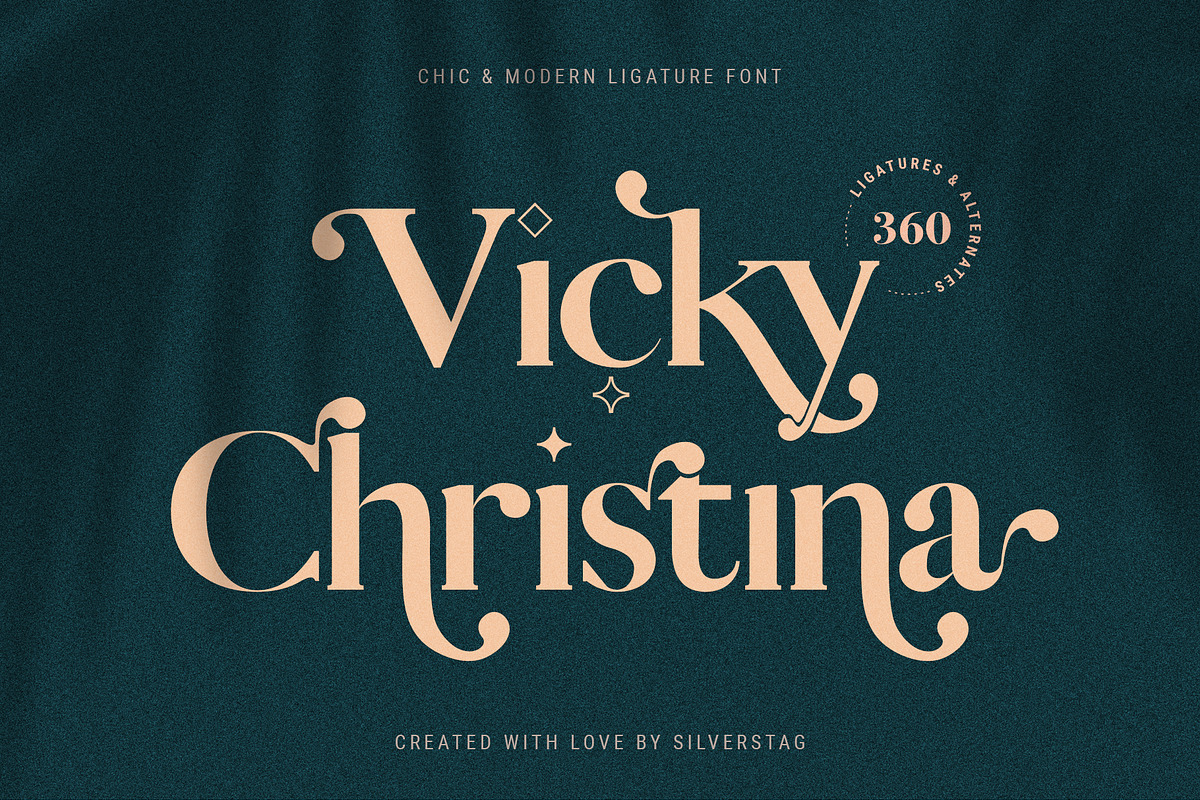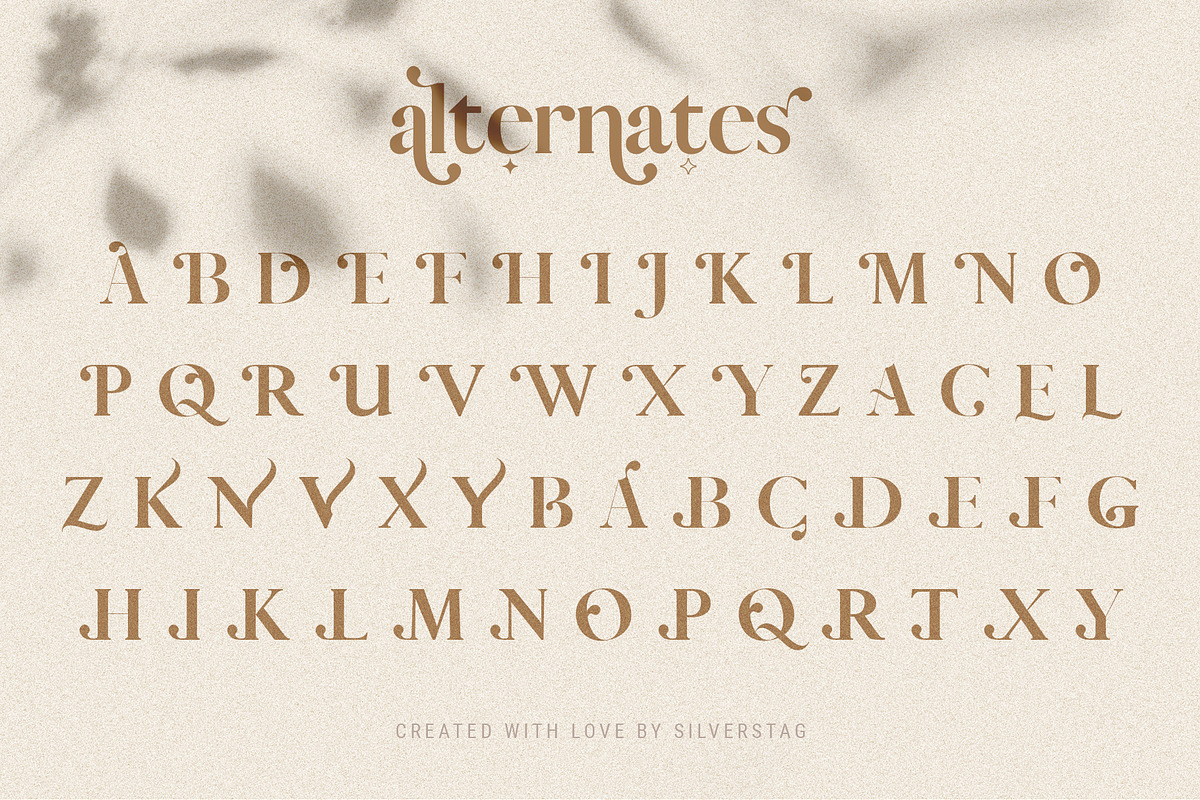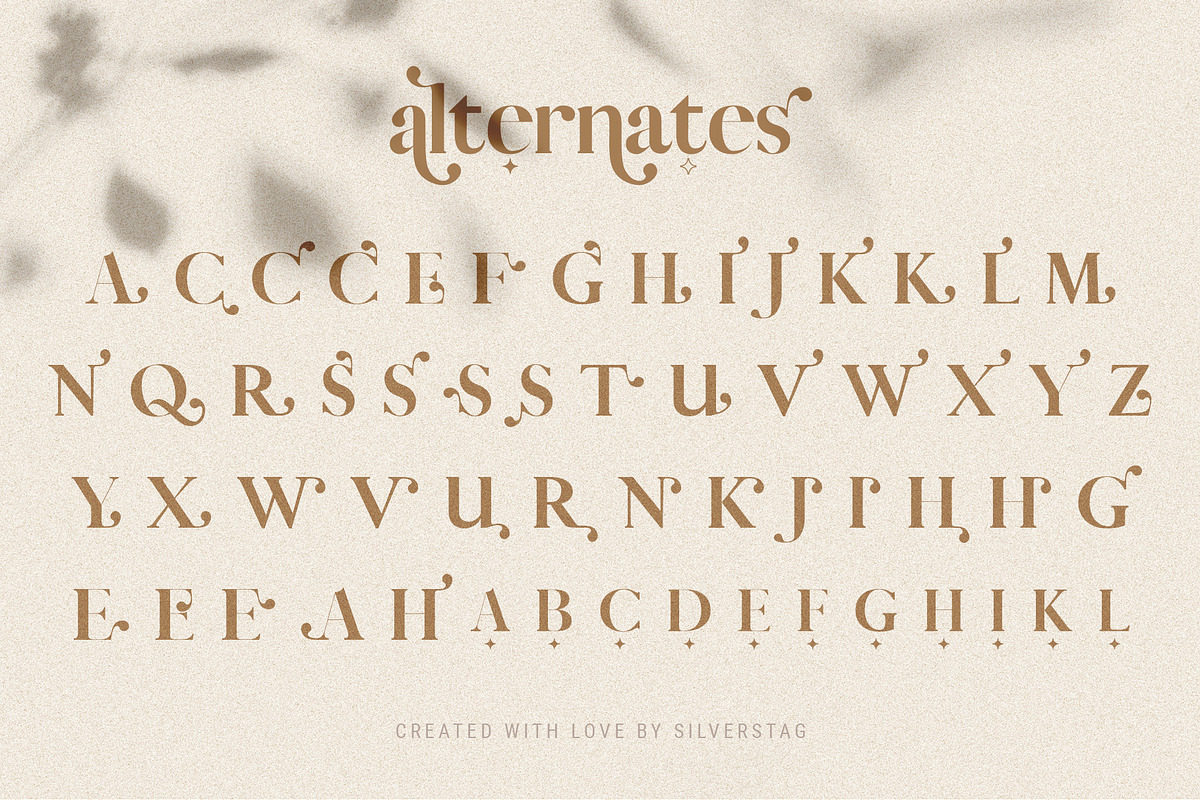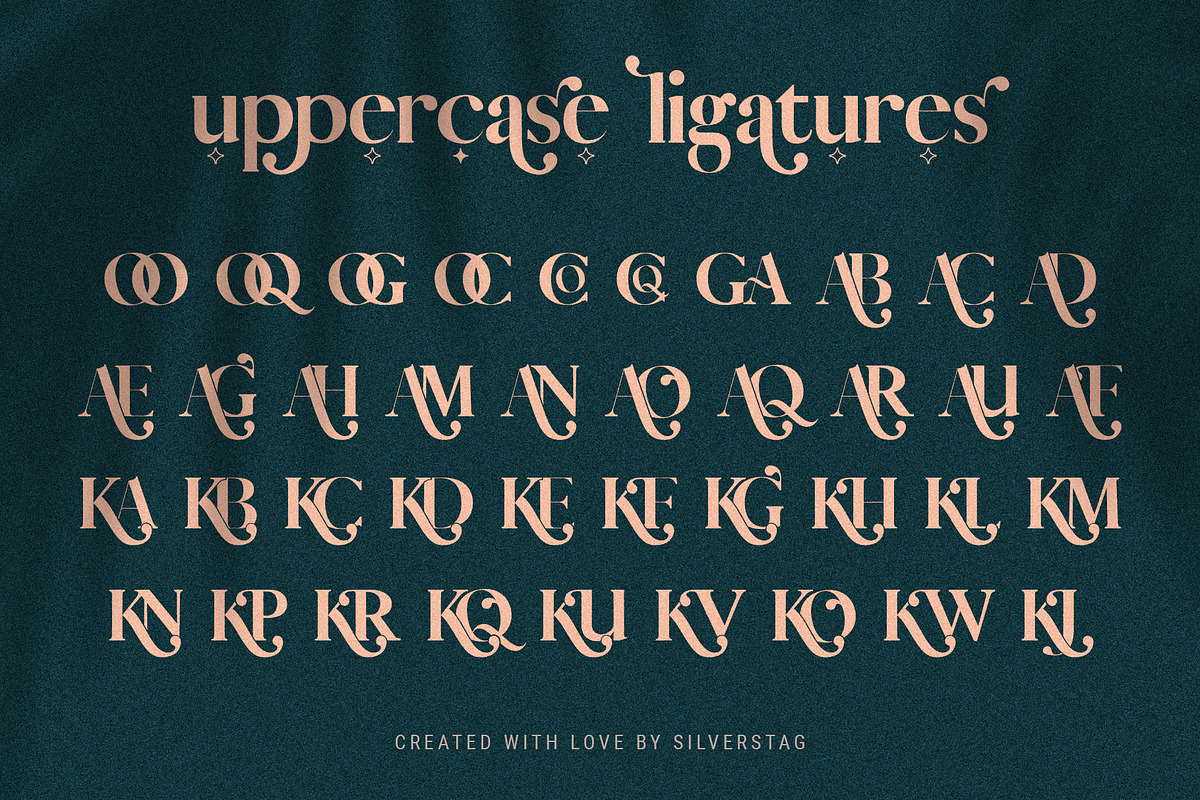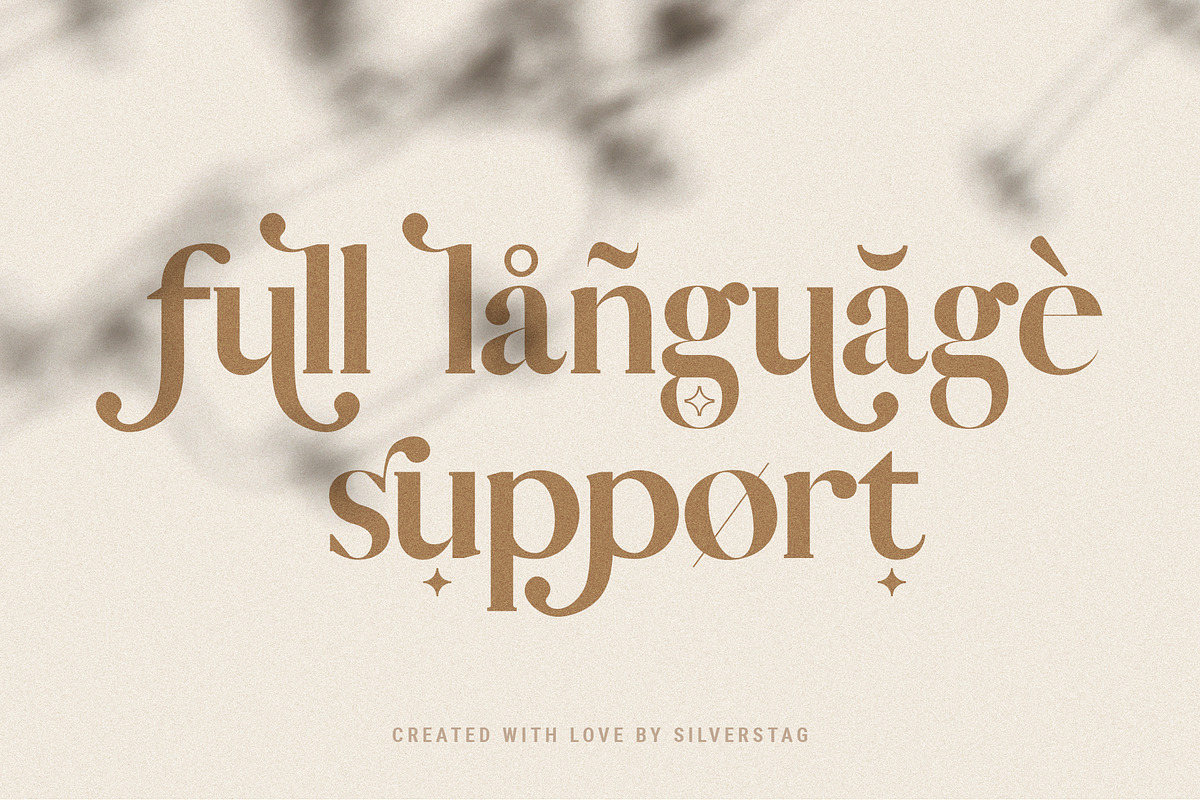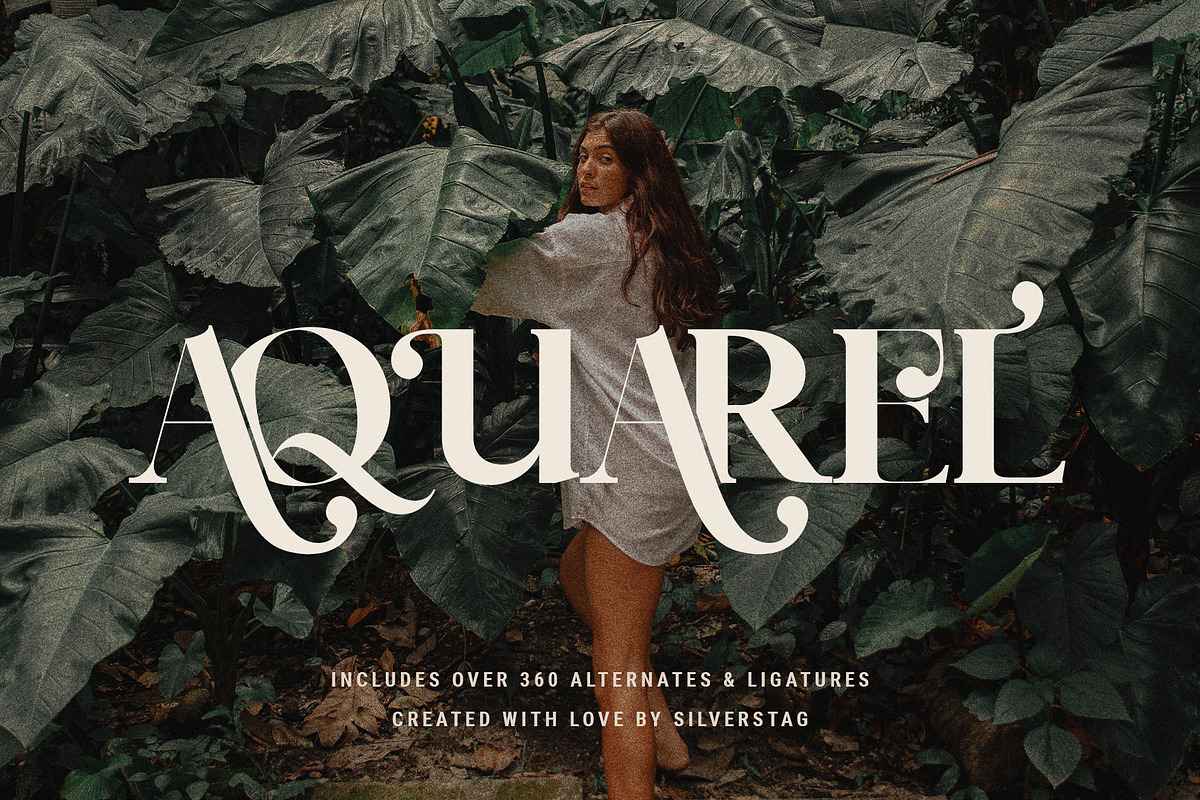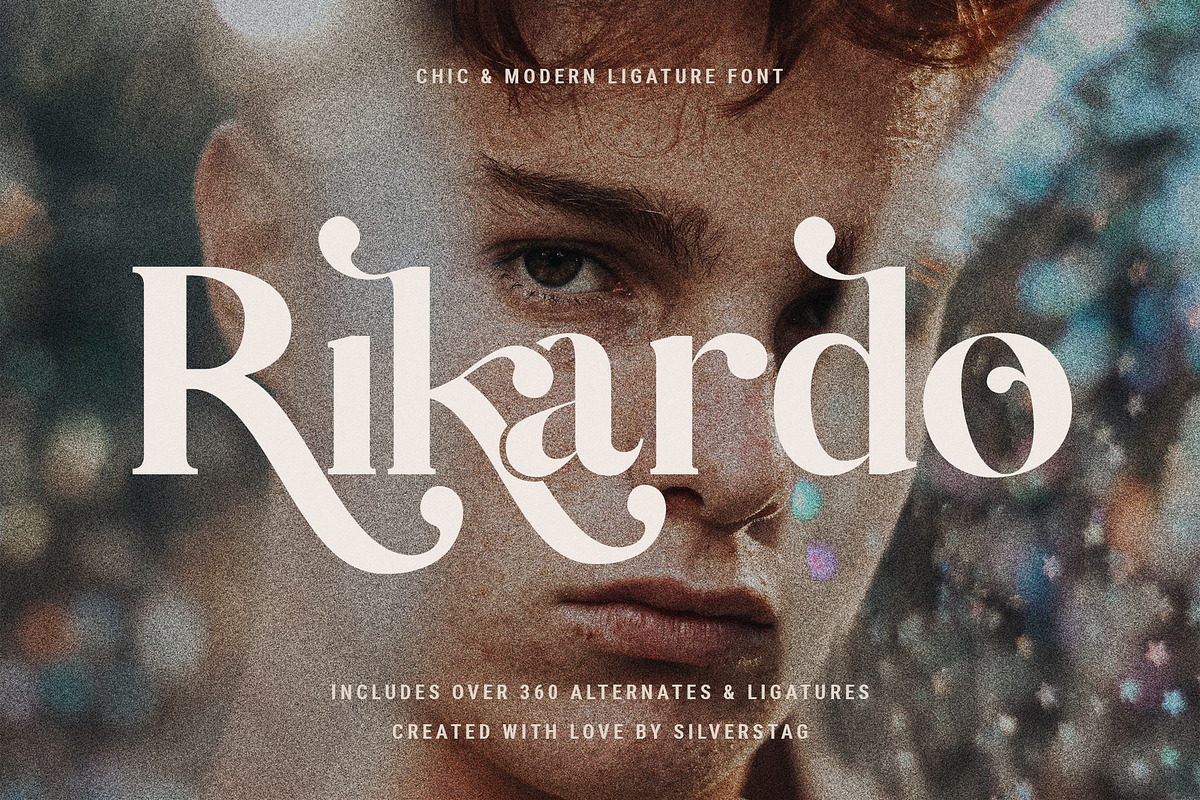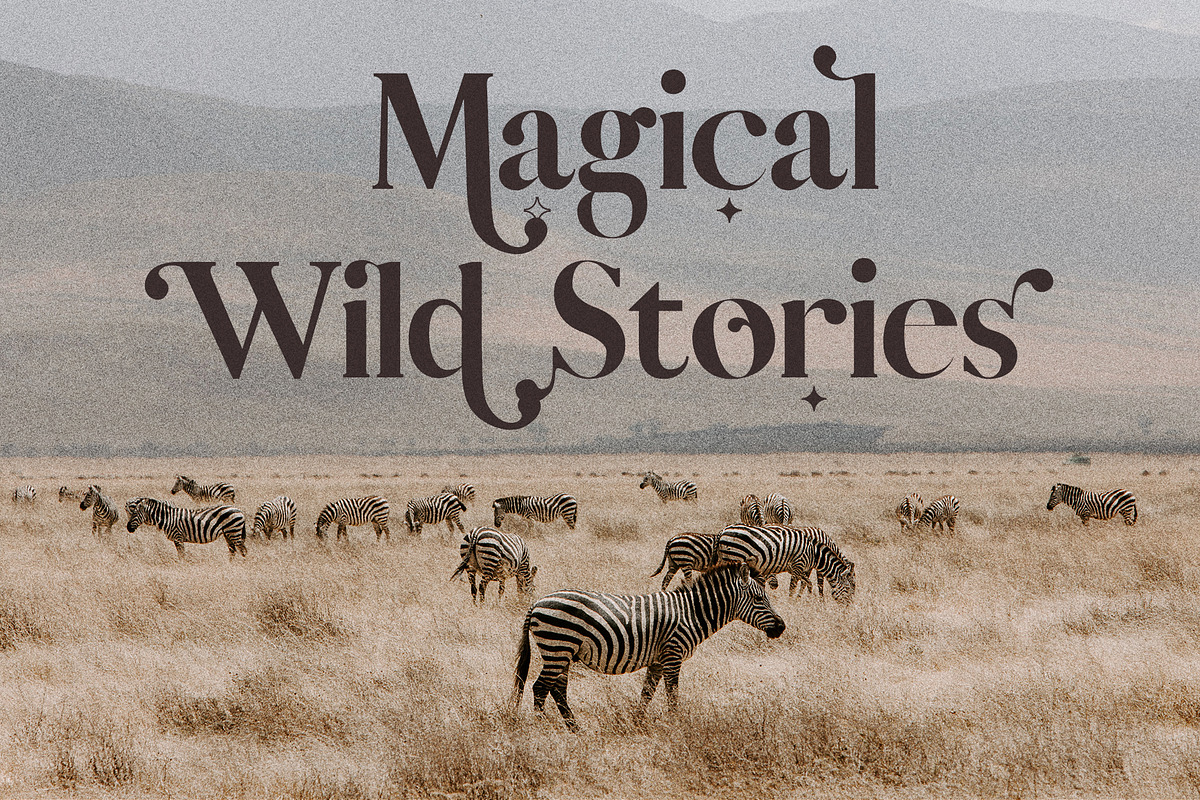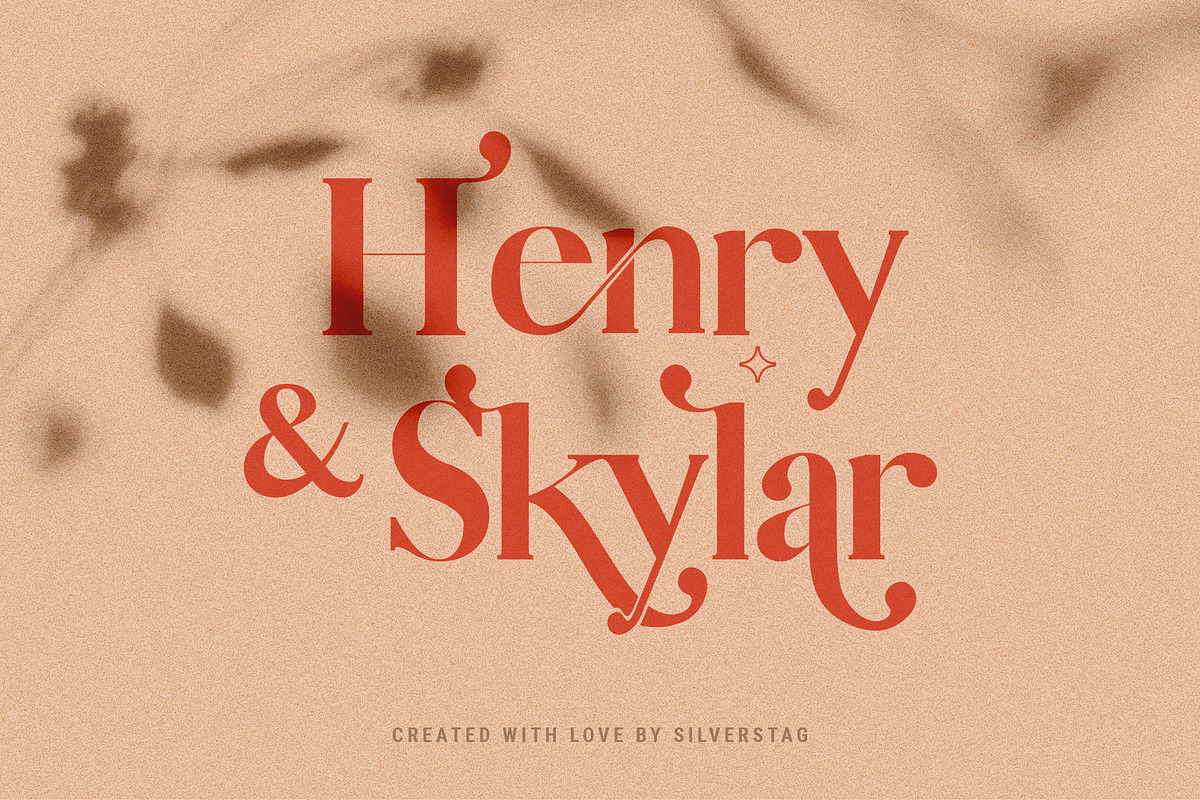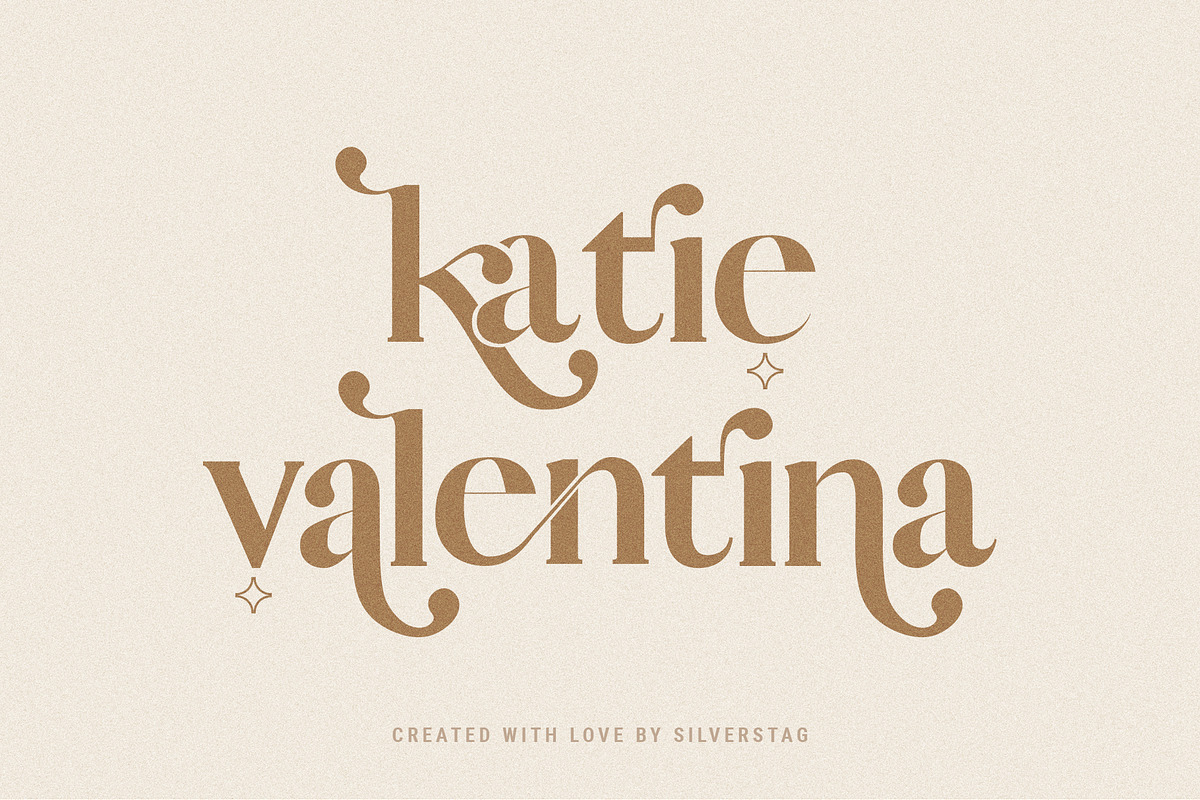
Vicky Christina Ligature Serif Font
Ok, I can not even describe how excited I am to announce my new Vicky Christina Ligature Serif Font.
I have been working on this one for quite a while and the ideas were just popping all around for more ligatures, more alternate letters, new combinations, new swirls,... And I ended up with over 360 alternates and ligatures in one serif font!
Whether you have a client that needs a new chic logo, or you're designing your social media posts. Maybe you're preparing your wedding mood board, stationery, invitations, Vicky Christina Ligature font is just perfect for all of that and more. Check out the photos I have prepared for you to see what you can do with it and happy creating!
Vicky Christina Ligature Serif Font includes:
- Over 360 Ligatures & Alternate letters
- Lowercase and Uppercase letters
The following letters are included: A À Á Â Ã Ä Å C Ç D Ð E È É Ê Ë I Ì Í Î Ï N Ñ O Ø Ò Ó Ô Õ Ö U Ù Ü Ú Û W Ẃ Ŵ ẄẀ Y Ý Ÿ Ỳ Ÿ Æ Œ ß Þ þ in uppercase and lowercase so Vicky Christina supports a huge number of languages.